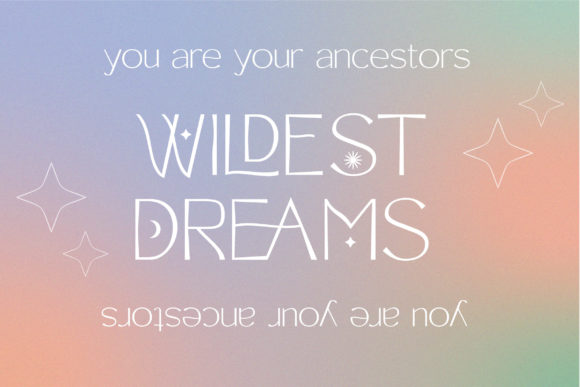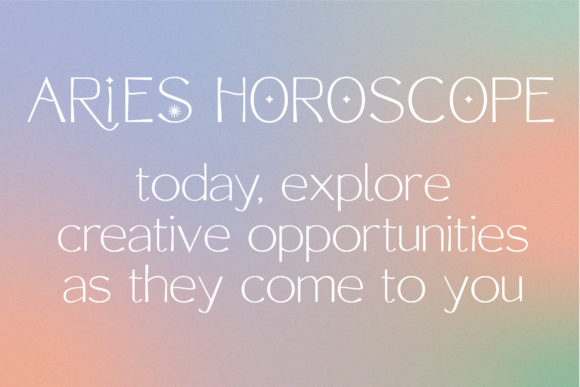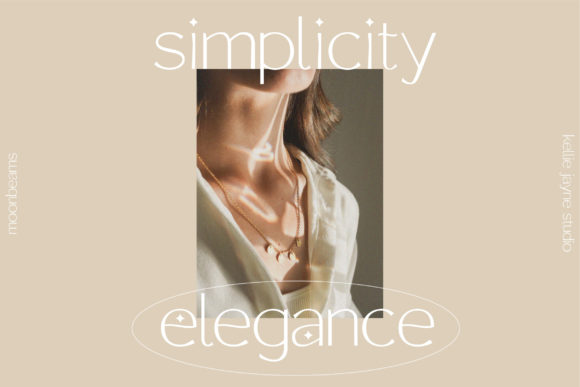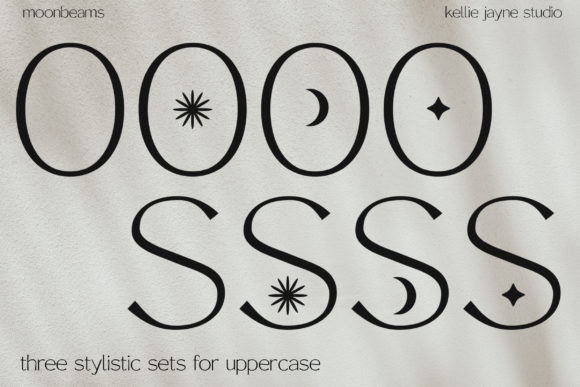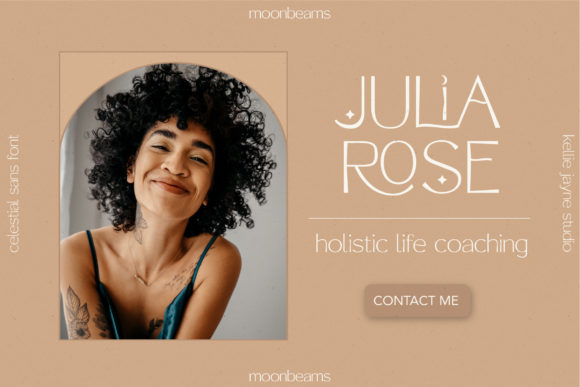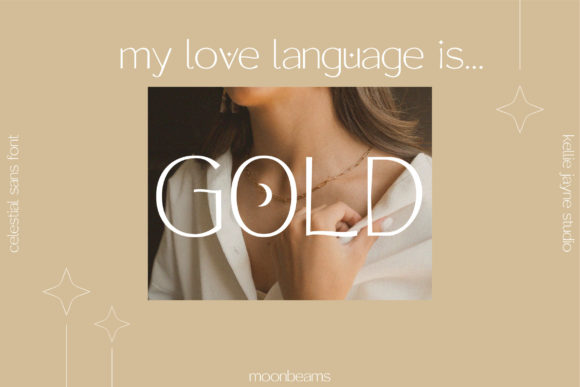
Introduction to Moonbeams Font
Have you ever found yourself staring at the night sky, mesmerized by the twinkling stars and the gentle glow of the moon? It’s moments like these that spark creativity and inspire us to bring our ideas to life. For designers, the right font can be the missing piece that elevates a project from good to great. And that’s exactly what the Moonbeams Font promises to deliver – a unique blend of minimalism and funk that’s perfect for branding, logos, and more.
Key Features of Moonbeams Font
- Unique and elegant design, ideal for creative projects that require a touch of sophistication.
- Comes with a transparent background, making it easy to use on various backgrounds and designs.
- Features a high-resolution design, suitable for printing and digital applications at 300 DPI or higher.
- Includes a comprehensive character set, supporting a wide range of languages and characters.
- Perfect for designers, artists, and writers looking for a stylish and versatile font to enhance their creative projects.
Honest Review: Moonbeams Font
I recently had the chance to work with the Moonbeams Font, and I must say it’s been a delightful experience. This font is perfect for any creative project that requires a touch of whimsy and elegance. Its high quality design makes it stand out from other fonts in its category.
What works well: ✨ The Moonbeams Font has a beautiful, transparent background that makes it easy to layer and blend with other design elements. Its unique combination of curves and lines creates a sense of movement and energy that’s perfect for modern designs.
Here are some of the features that I loved about this font:
- High-quality design that’s perfect for print and digital projects
- Transparent background makes it easy to layer and blend with other elements
- Unique combination of curves and lines creates a sense of movement and energy
- Perfect for creative projects that require a touch of whimsy and elegance
Overall, I’m really impressed with the Moonbeams Font. Its unique design and high-quality construction make it a great choice for any creative project. Whether you’re working on a personal project or a professional design, this font is definitely worth checking out.
The Moonbeams Font is suitable for various design projects, including invitations, greeting cards, and digital art. Its high-quality design and transparent background make it a versatile resource for designers and creatives.